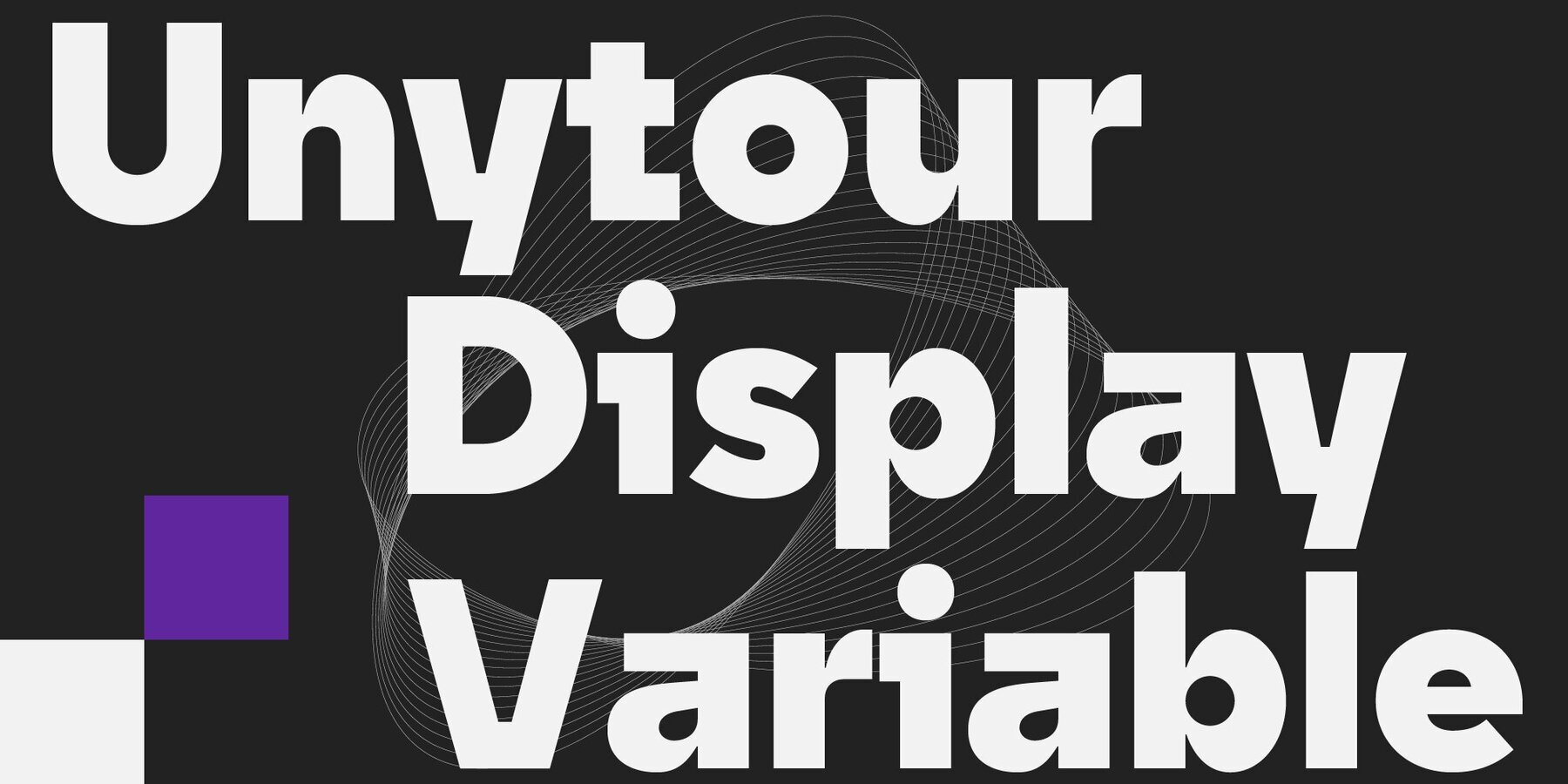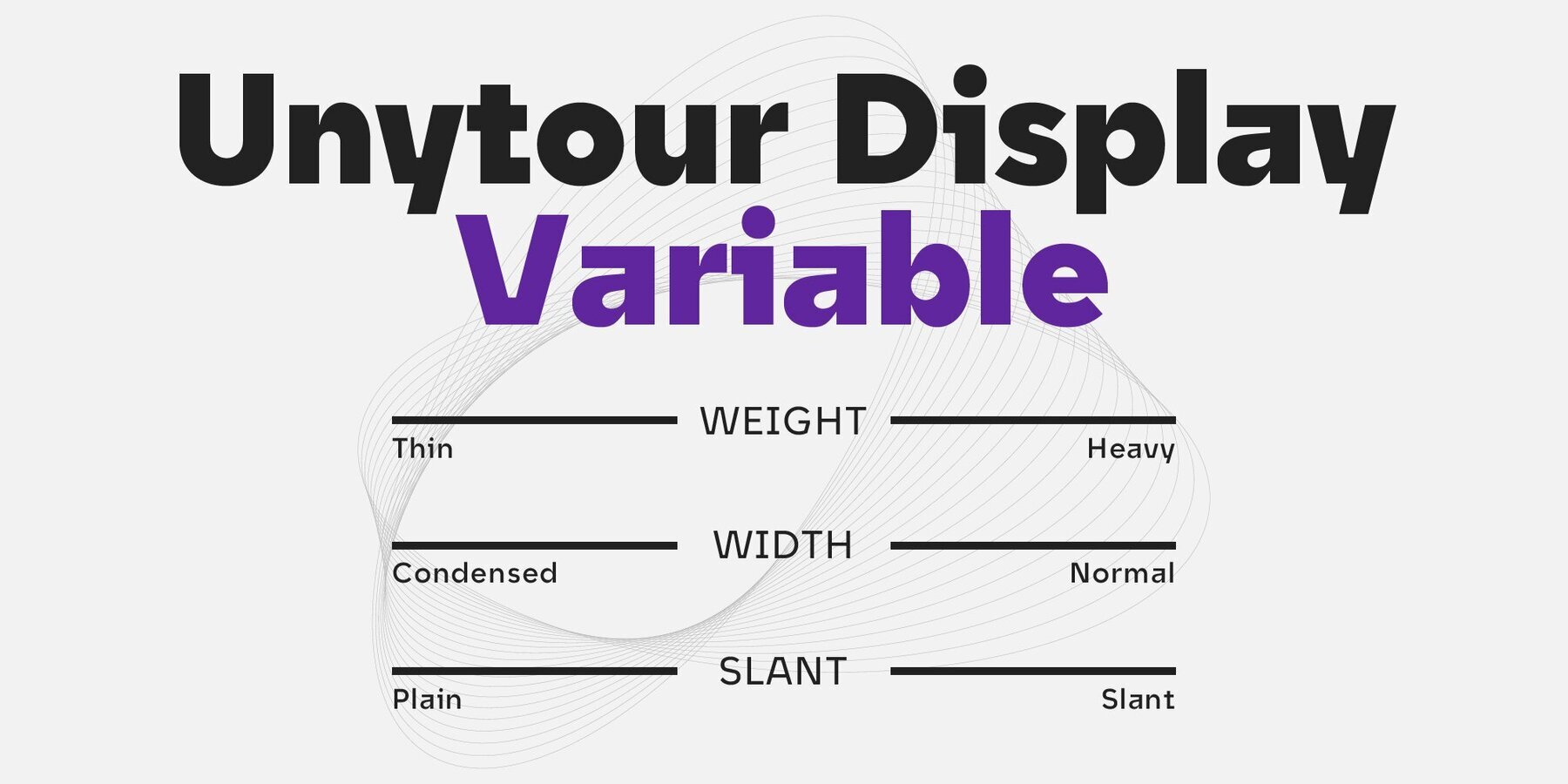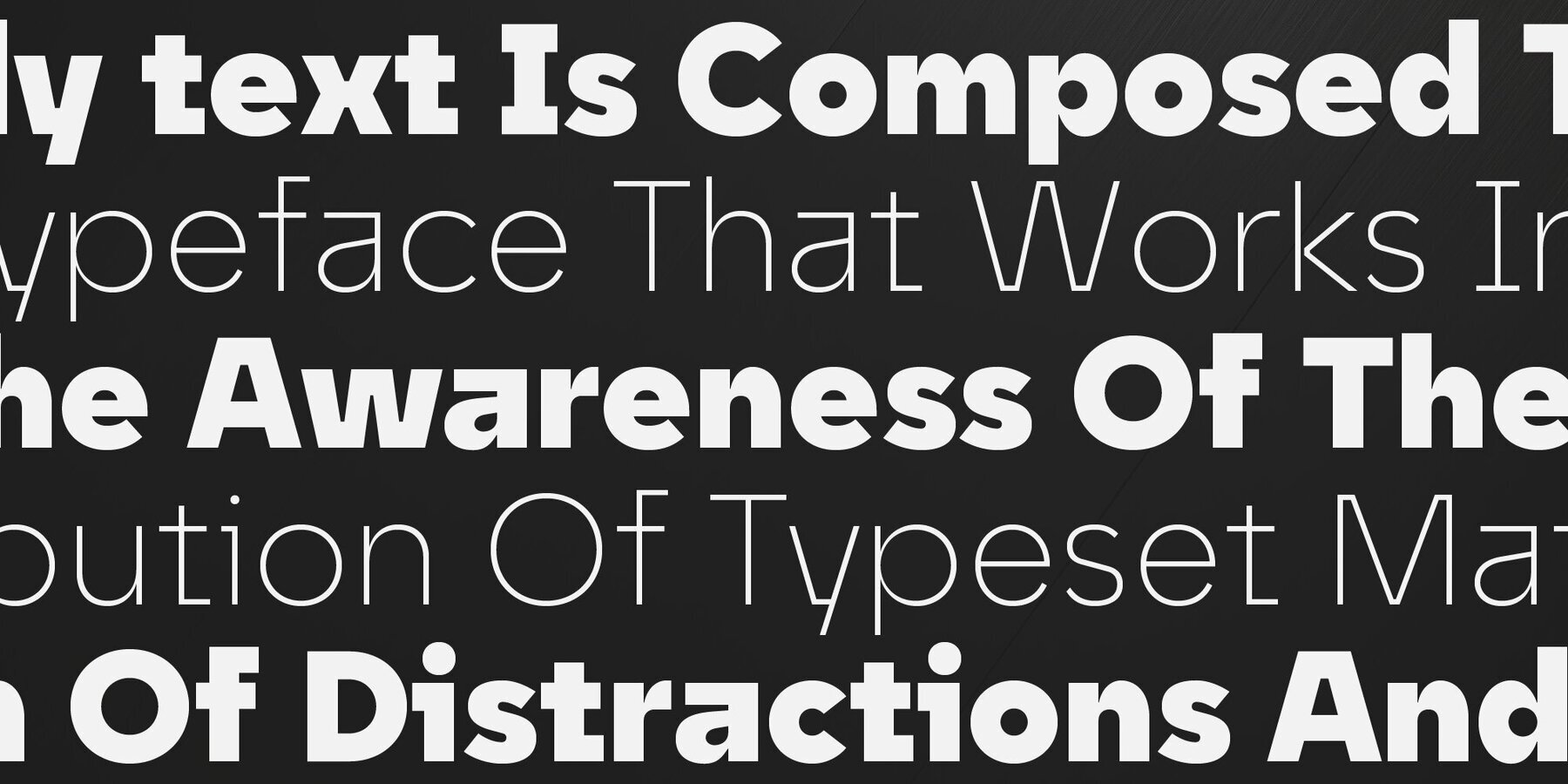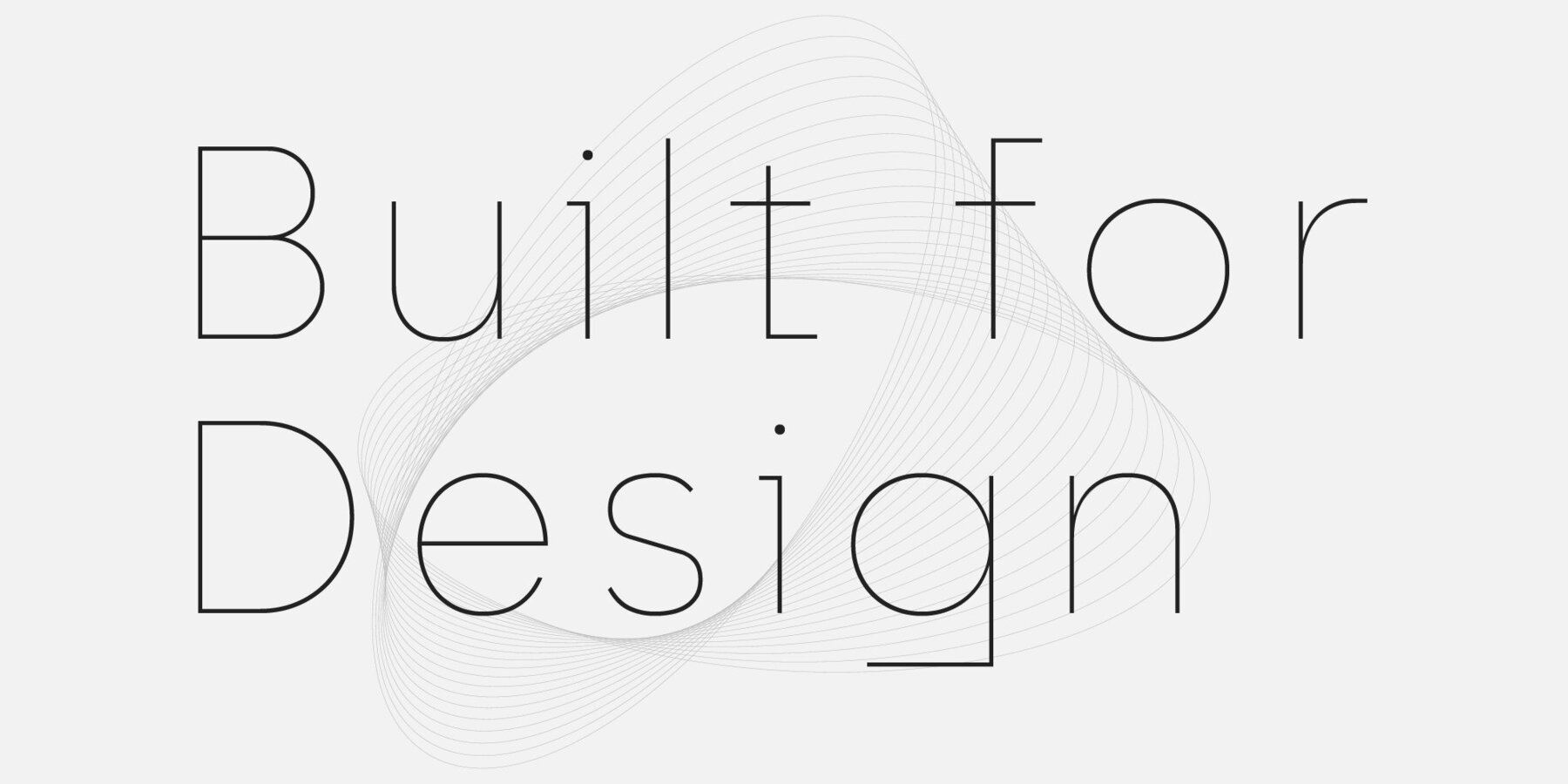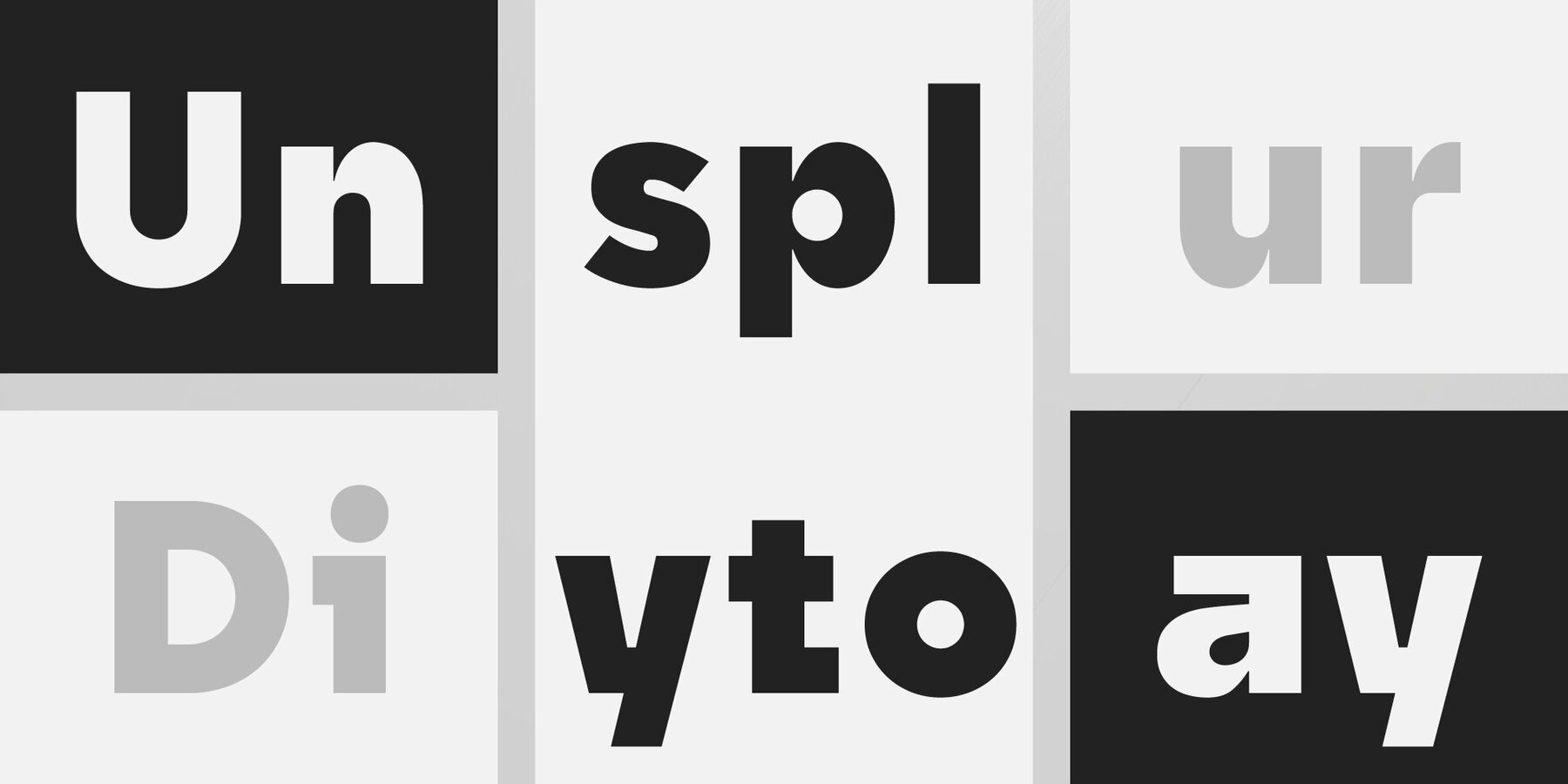
Unytour Display Variable Font
Unytour Display Variable
Unytour Display Variable font – a dynamic addition to the renowned Unytour Display font family. Variable font includes 3 subfamilies: Condensed, Narrow, and Normal. With its variable font technology, Unytour Display Variable font empowers designers with flexibility. Seamlessly adjust weight, width, and slant parameters to achieve the perfect balance and aesthetic harmony for your projects. The font includes alternate glyphs for characters such as A, G, I, R, a, and l, ensuring that your typography stands out with unique flair. Additionally, a rich array of OpenType features further enhances your creative toolkit.
Unytour Display Variable features excellent legibility for print, as it does for reproduction on TV screens and more.
Savchuk Mykola began his career as a graphic designer. Over time, he had a desire to create a font that would reflect his view of typography. ‘They say that all ingenious things are simple, although unique. In my future projects, I want to reflect simplicity on the one hand and uniqueness on the other, providi...